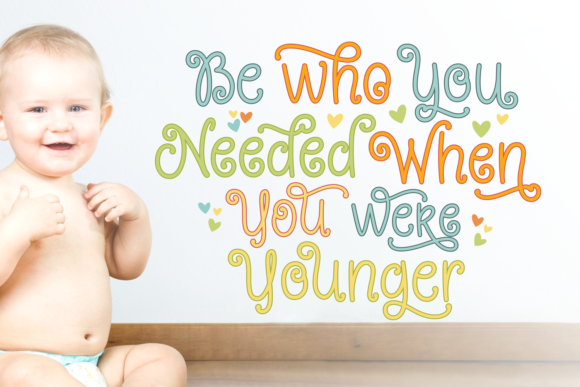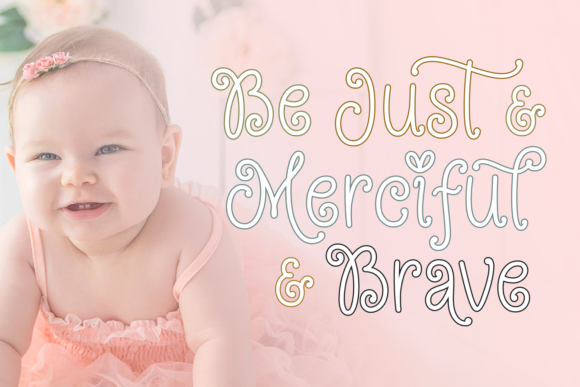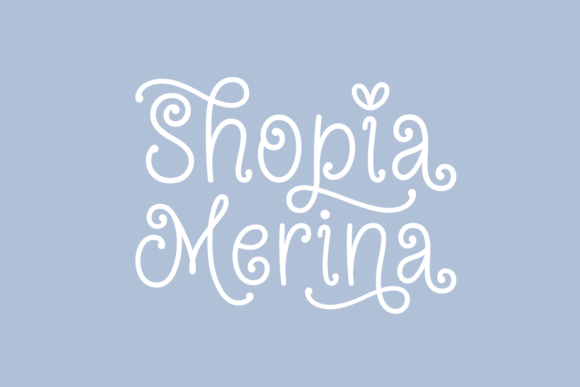
Young Daughter Font
About Young Daughter Font
Young Daughter is a beautiful and charming handwritten font with an adorable twist. Get inspired by its bold feel!